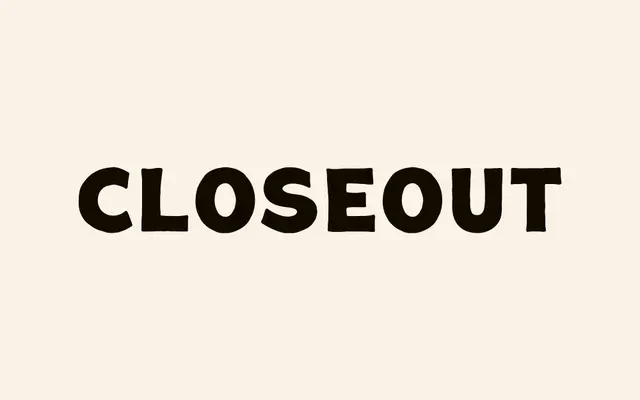
Closeout
A two-style display family from Taylor Penton, comprising an upright and a slanted cut aimed at branding, packaging and identity work.
The name, the playful product copy, and the companion slanted style all point to a display-oriented sans with a personality-led, vernacular character suited to branding and short-setting work.